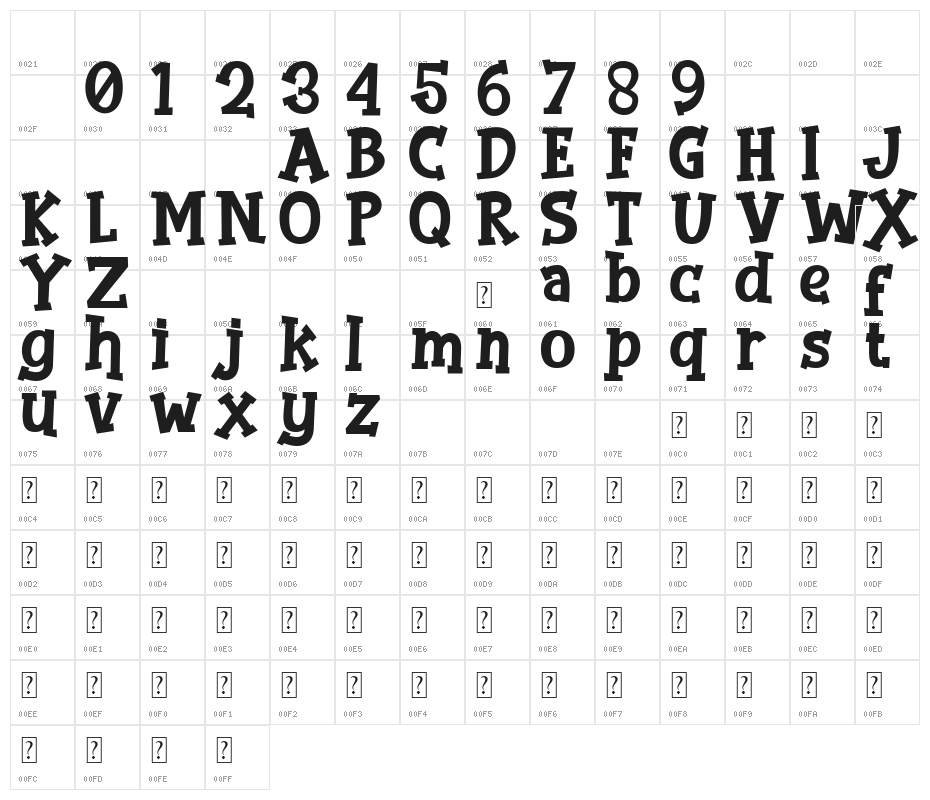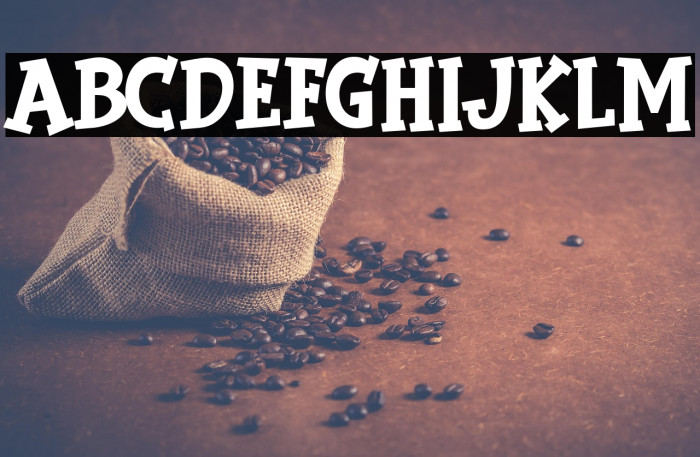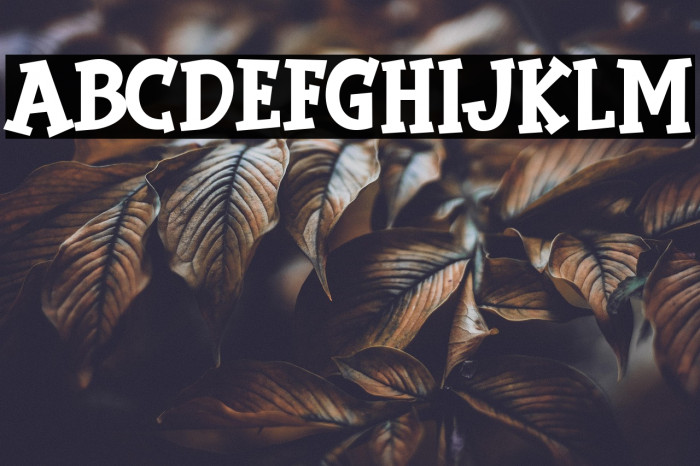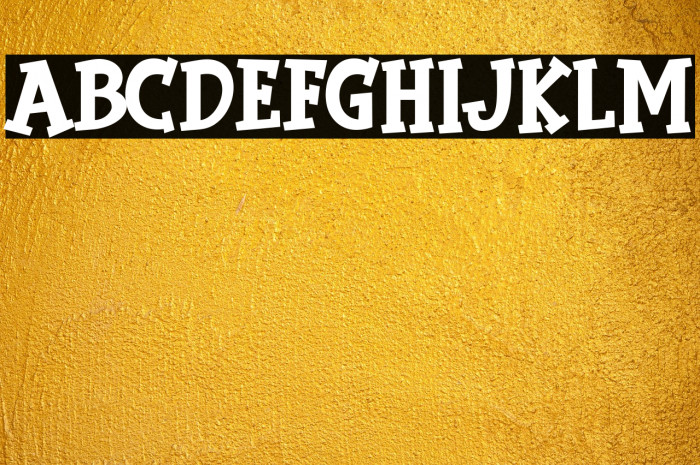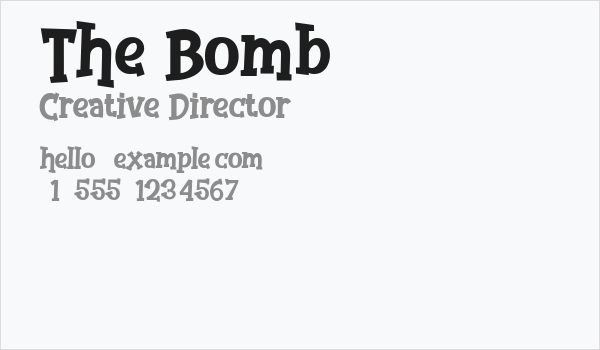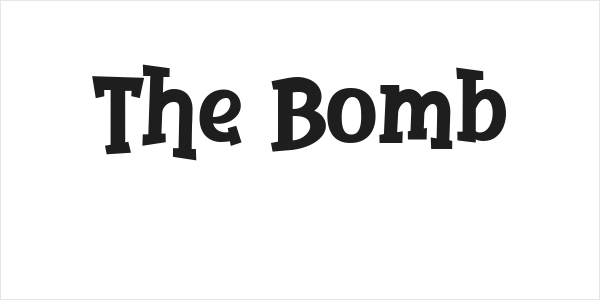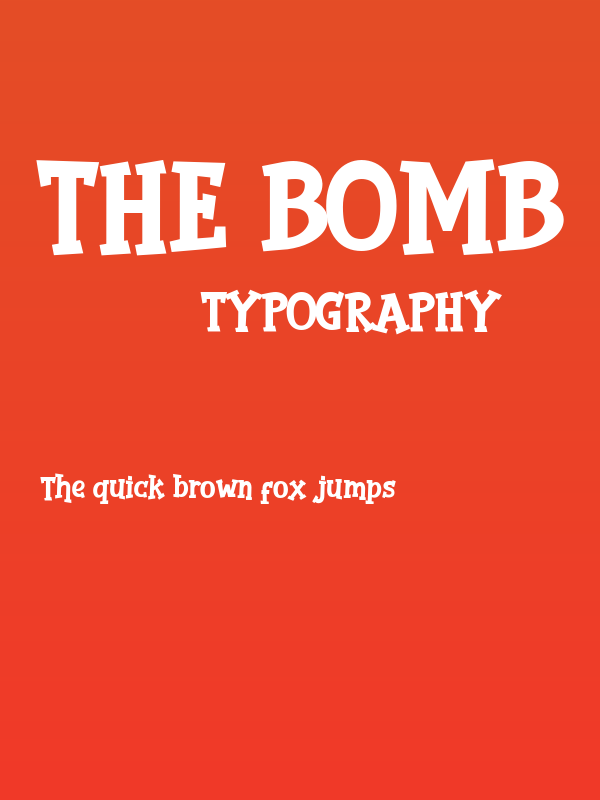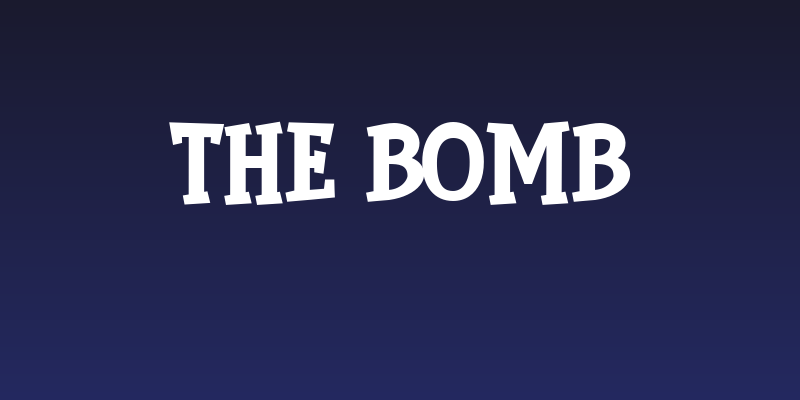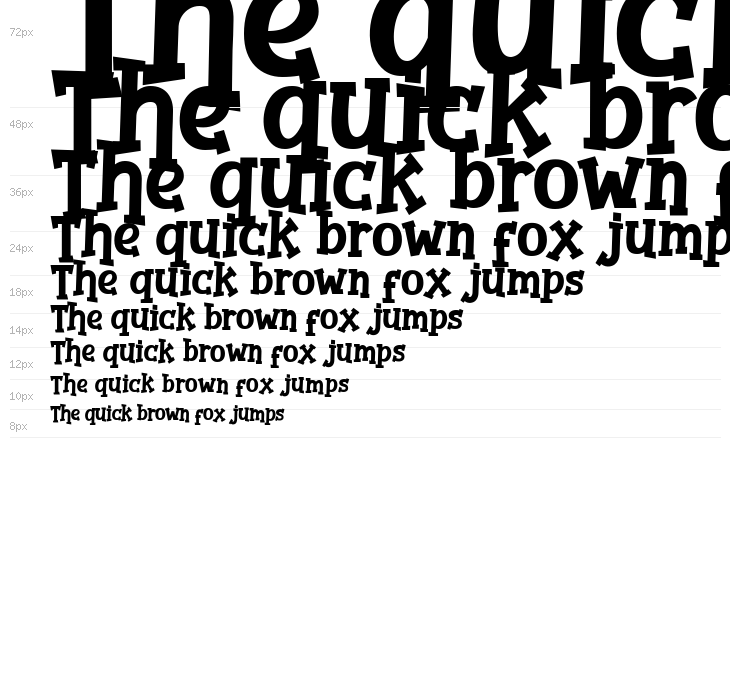
The Bomb Font
The Bomb Description
This font features a playful and bold design, characterized by its thick strokes and slightly uneven, whimsical letterforms. The letters have a cartoonish quality, with exaggerated serifs and a dynamic, bouncy appearance. The overall style is informal and fun, making it suitable for creative and lighthearted projects. The numbers and special characters maintain the same playful aesthetic, ensuring consistency across all glyphs.
| Overall Style | Playful, Cartoonish |
| Proposed Projects | Ideal for children's books, comic strips, playful branding, and event posters. |